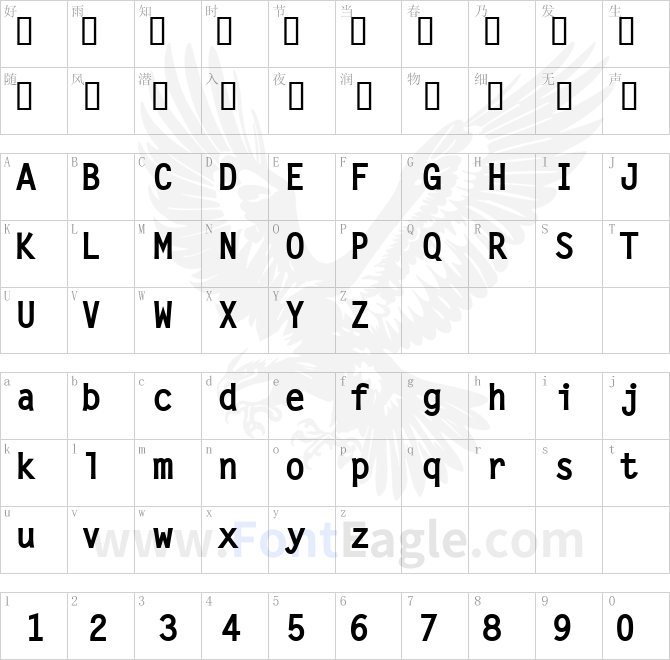
- Font name:LetterGothic
- Font Subfamily ID:SoftMaker Software GmbH LetterGothic-Bold
- Font Full Name:LetterGothic-Bold
- Postscript:LetterGothicBold